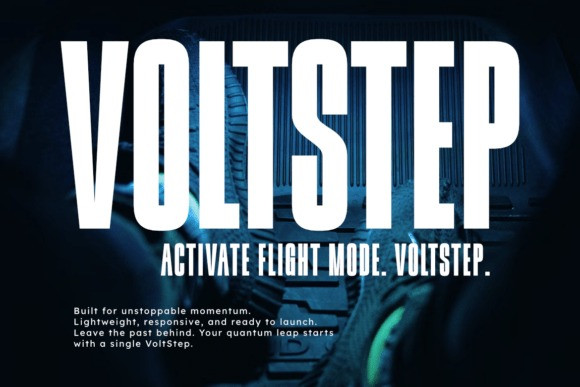
Godness Font
Godness Font is a modern condensed sans typeface that blends strength and elegance in one bold form. With tall, narrow letterforms and sleek lines, this font is ideal for headlines, posters, logos, sports designs, and editorial layouts that demand attention. Its versatile design works beautifully for both minimal and high-impact typography, making it a perfect choice for modern branding and visual identity projects.